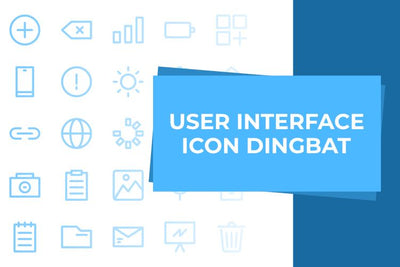
User Interface
User Interface is an attractive and unique web font. because the glyph uses a line style icon. this can make your job easier! This font is compatible in various software such as Photoshop, Illustrator, Word, Coreldraw, Inkscape and many more. the format you will get TTF and OTF